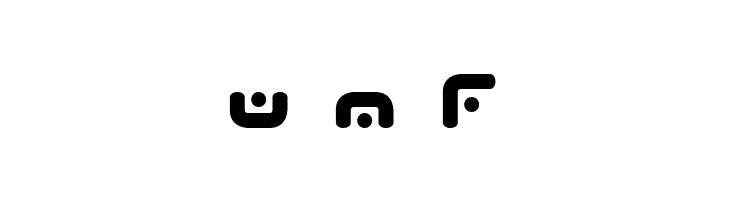
QUUB Black_Italic Font
- Font: QUUB Black_Italic
( Fonts by Beyond Design - Ola Bjorling )
A bold, futuristic font with rounded edges and a geometric style.